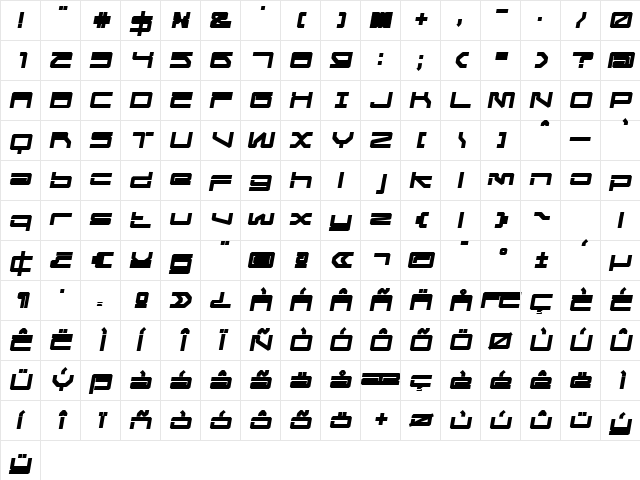
MechwarBold Oblique Regular Free Font
MechwarBold Oblique Regular
Design Context for MechwarBold Oblique
MechwarBold Oblique is a composed and adaptable typeface that performs quietly and consistently across a wide range of design contexts. The slanted form adds forward momentum and visual energy. Its bold stroke weight gives it real presence on the page.
Pro Tip: Use MechwarBold Oblique for emphasis, pull quotes, and subheadings where its slanted energy can add rhythm to the layout.